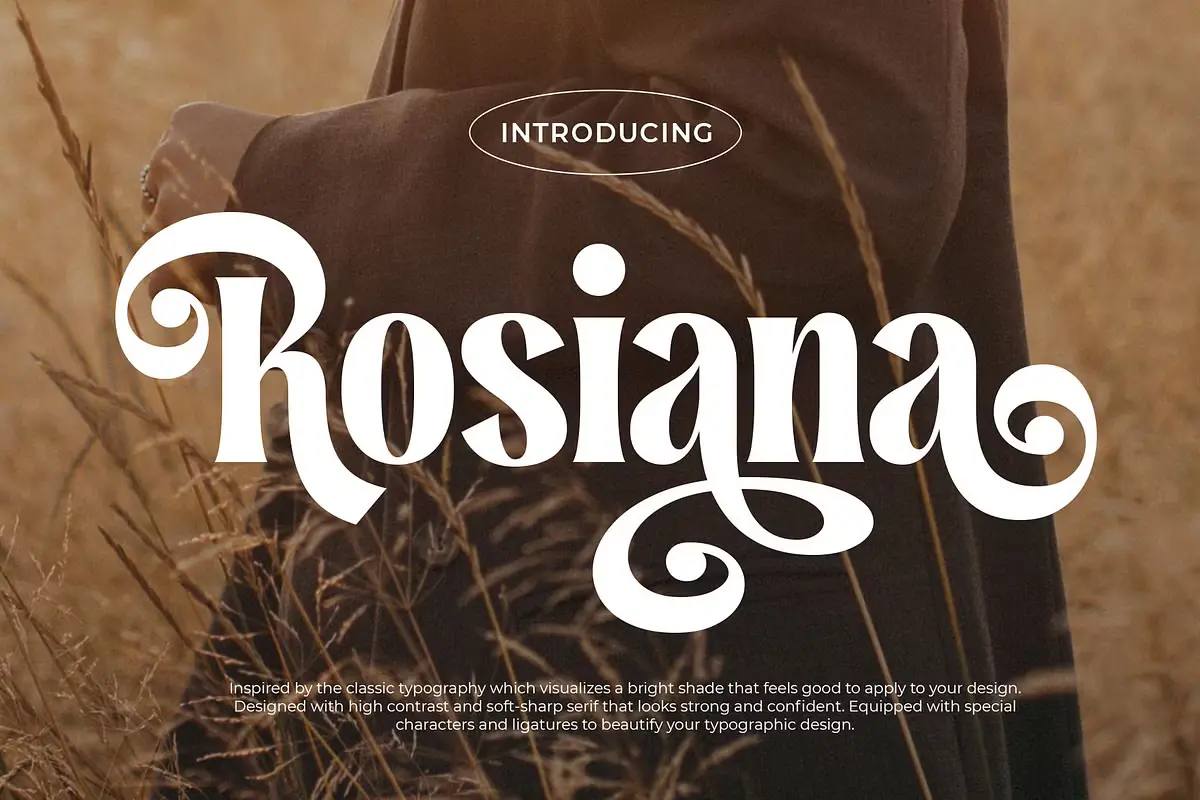
Rosiana is an elegant serif typeface inspired by classic typography, designed to bring sophistication to your creative projects. With its refined letterforms and cheerful appearance, this font adds a touch of vibrance to a variety of designs, including invitations, greeting cards, magazines, labels, book covers, logotypes, and packaging. The combination of smooth curves and well-balanced proportions makes it a perfect choice for both modern and timeless aesthetics.
This font boasts high contrast and soft serifs, exuding strength and confidence, making it ideal for advertisements and branding materials. With over 200 unique characters and ligatures, Rosiana offers extensive possibilities for creative typography, ensuring versatility and distinction in every design. Whether you’re crafting elegant headlines or stylish logos, this font helps you achieve a polished and professional look effortlessly.